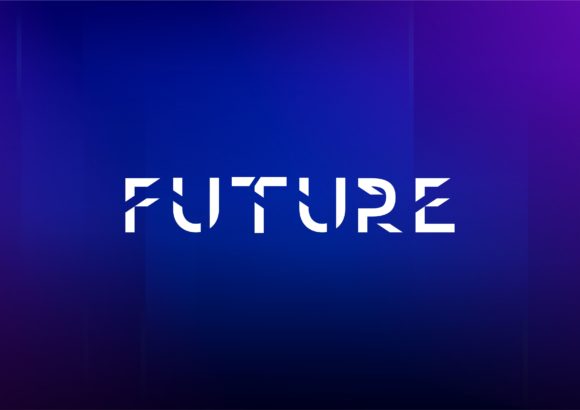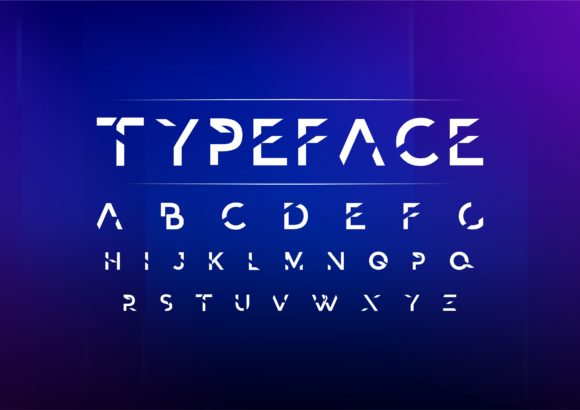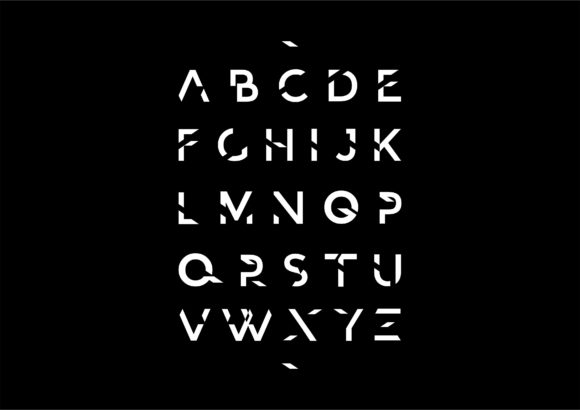
Introduction to Galaxyst Font
Galaxyst is a cool, geometric display font.
It celebrates abstract shapes in all their eclectic brilliance Add this font to your creative ideas and notice how it will make them stand out.
Key Features of Galaxyst Font
Why Choose Galaxyst Font?